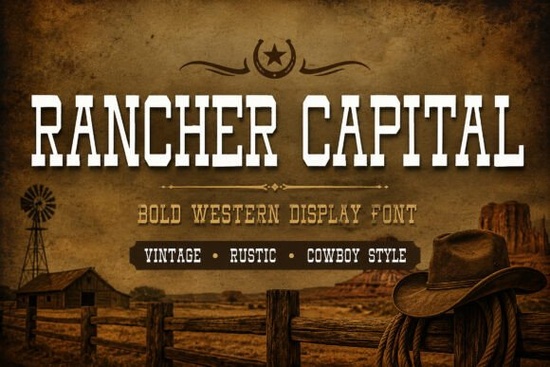
If you're looking for a typeface that captures the rugged, adventurous spirit of the Wild West, Rancher Capital Font is an excellent choice. This bold western display font is inspired by vintage cowboy signage, old ranch branding, and rustic Americana aesthetics. It’s perfect for designers, crafters, print-on-demand sellers, and small businesses who want to add a touch of classic western personality to their projects.
What Makes Rancher Capital Stand Out?
Rancher Capital is designed with strong slab serif structures and rugged character details, making it ideal for impactful headlines and standout branding. Its solid, masculine letterforms are versatile and can be used in a variety of creative projects, from logos and posters to apparel and merchandise. The font's authentic Wild West feel brings a timeless frontier energy into your work, making it a go-to choice for anyone looking to infuse their designs with a nostalgic and adventurous vibe.
Perfect for Rustic-Themed Projects
Whether you’re creating vintage posters, western logos, or bold editorial designs, Rancher Capital is a great fit. Its robust and distinctive style makes it particularly suitable for whiskey labels, rodeo branding, packaging, and other rustic-themed projects. The font’s ability to convey strength and character adds a unique touch to any design, making it stand out in a crowd.
How Can You Use Rancher Capital in Your Designs?
Rancher Capital is incredibly versatile and can be used in a wide range of applications. Here are some ideas on how you can incorporate this font into your projects:
- Logos: Create memorable and impactful logos for brands that embody a rugged, outdoor, or western theme.
- Posters: Design eye-catching posters for events, promotions, or just for decorative purposes, with a vintage, rustic feel.
- Apparel: Add a touch of classic western style to t-shirts, hats, and other clothing items, making them perfect for gift shops or online stores.
- Merchandise: Use Rancher Capital on mugs, keychains, and other small items to create a cohesive and appealing product line.
- Whiskey Labels: Give your whiskey bottles a premium, handcrafted look with this bold and stylish font.
- Rodeo Branding: Enhance the branding for rodeo events, competitions, and related merchandise with a font that resonates with the audience.
Tips for Using Rancher Capital Effectively
To get the most out of Rancher Capital, here are some practical tips:
- Balance with Simplicity: Use Rancher Capital for key elements like headings and titles, and pair it with simpler, more readable fonts for body text.
- Experiment with Colors: Try using earthy, natural colors to enhance the rustic, western feel of the font. Brown, tan, and deep reds can work well.
- Play with Spacing: Adjust the kerning and tracking to find the right balance between legibility and visual impact. Tighter spacing can make the font appear more compact and powerful.
- Combine with Graphics: Incorporate graphics and illustrations that complement the western theme, such as lassos, cowboy hats, or cacti, to create a cohesive design.
By following these tips, you can effectively use Rancher Capital to create designs that are both visually striking and true to the classic western aesthetic. Whether you’re working on a personal project or a commercial one, this font is sure to add a unique and memorable touch to your work.
With its strong, nostalgic, and adventurous character, Rancher Capital is a valuable addition to any designer’s toolkit. Happy designing!